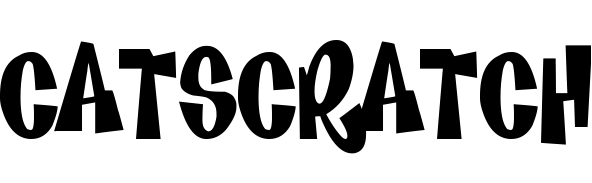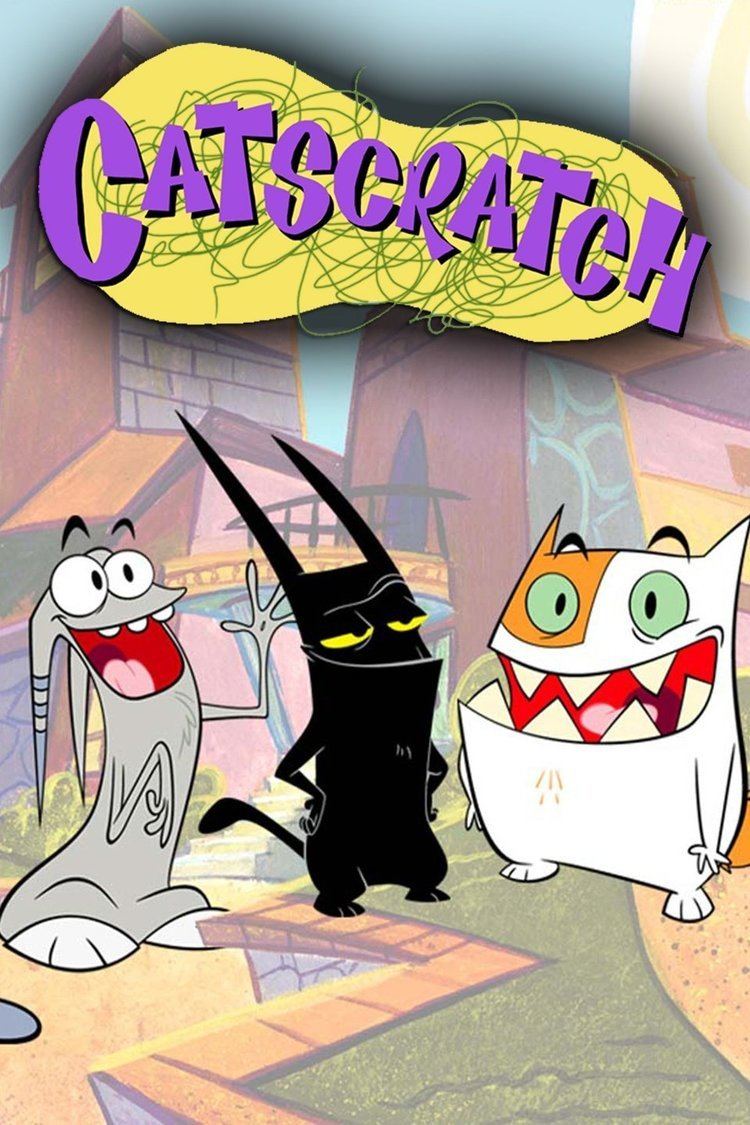
Catscratch (TV series) Font
AnimationCatscratch is an animated television series that aired on Nickelodeon from 2005 to 2007. It follows the adventures of three feline siblings as they navigate life in their new home and interact with their eccentric owner.
The Catscratch title lettering is very similar to a fancy cartoon font called Kenan & Kel by Jayde Garrow. You can download the font for free in the Fonts Used Section.